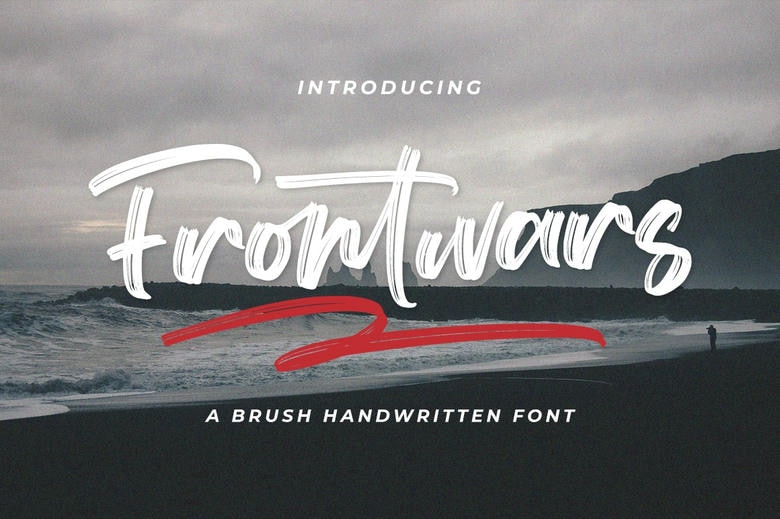
Frontwars Font
Frontwars – it is a raw, handwritten type of design which is as natural as handwriting and recorded in an extraordinary brush font. Taking on the role of logo designs or simply enhancing the aesthetics of any project, talk about flexibility.
They say –imagine – sinful invitations for a fabulous wedding, words that make the viewer’s head turn, dramatically embodied on a book cover or still effective extravagant promotional trifles that catch the eye.
Frontwars Brush Script Font